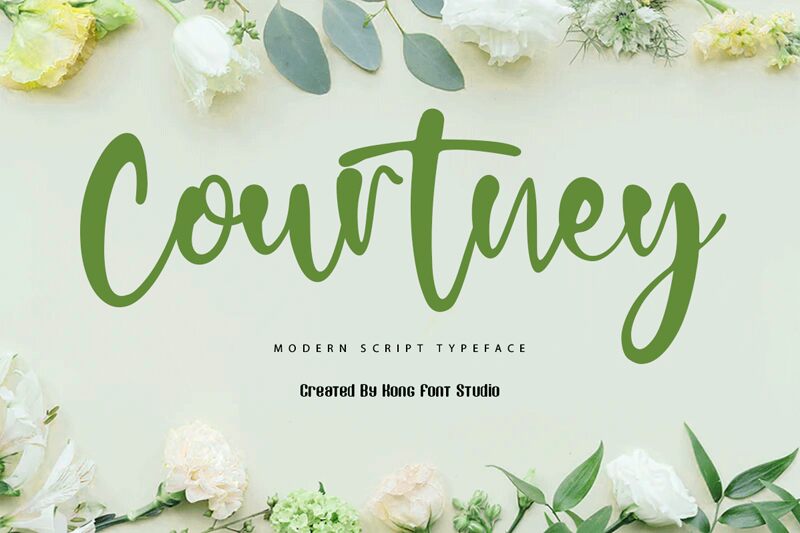
Courtney
Looking for a modern marker script font that can add an authentic touch to your designs? Look no further than Courtney by Kong Font. This gorgeous typeface boasts a stylish and contemporary look, with its flowing lines and fluid strokes lending it a sense of elegance that is perfect for everything from wedding invitations to product packaging. The semi-bold font is suitable for use in headlines and titles, while the regular width is ideal for body text. Whether you're creating logos, branding materials or social media graphics, Courtney can help take your designs to the next level.